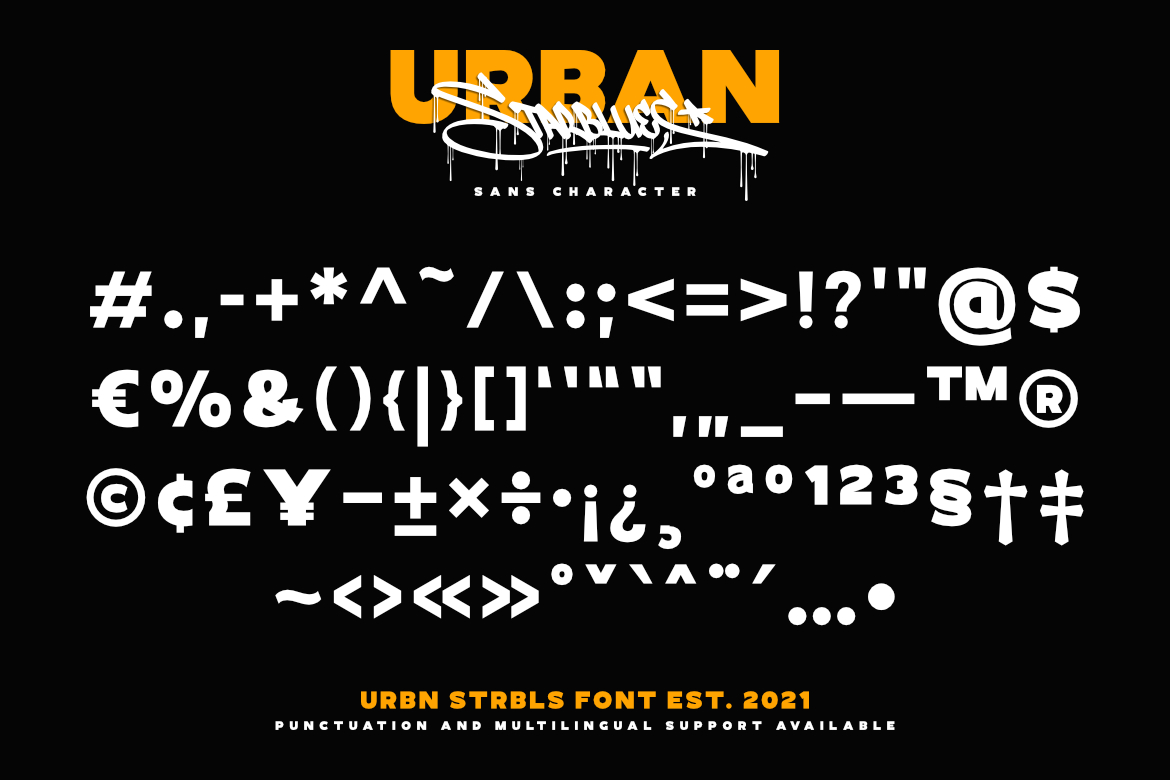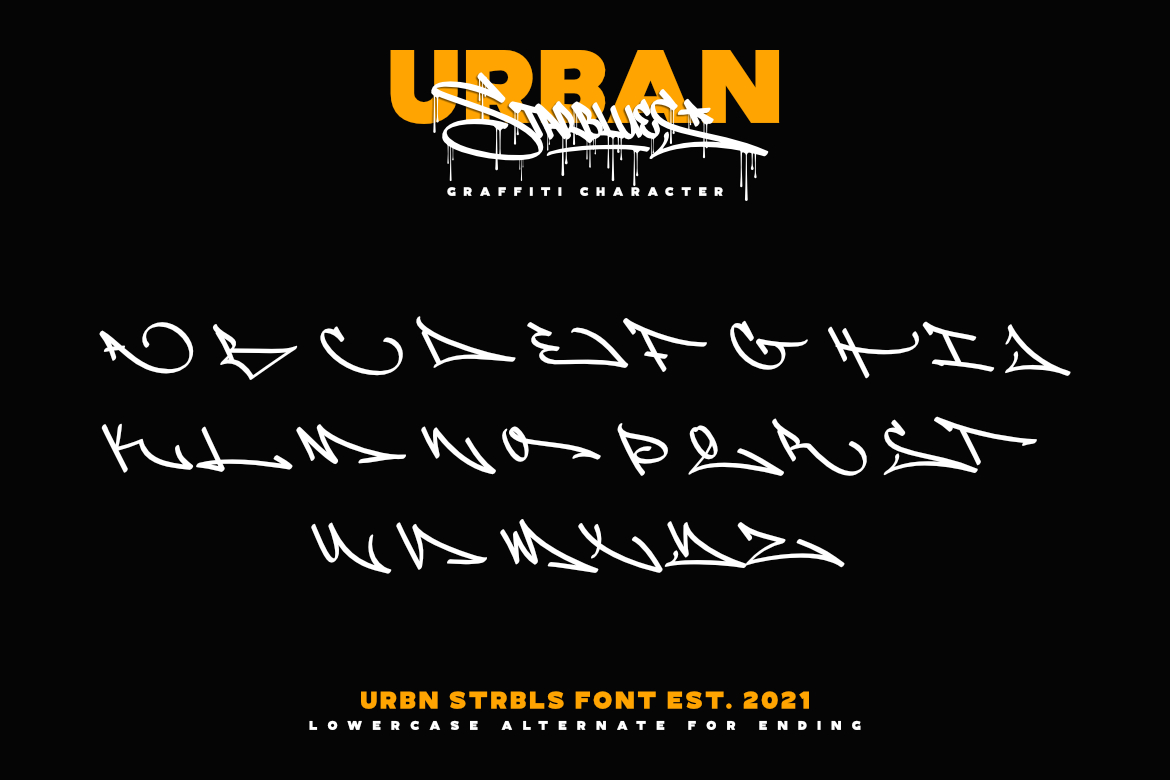
Urban Starblues – Font Duo.
Strong paired fonts as the main design display. Yes, it is very good for design with graffiti theme. You can apply it to t-shirt designs, posters, covers, video thumbnails, merchandise and so on to make it look special.
Features: Uppercase, Lowercase, (All Caps Sans) Numeral, Punctuation, Multilingual, Alternate (Graffiti) & PUA Encoded.
Multilingual contained: Afrikaans, Albanian, Asu, Basque, Bemba, Bena, Breton, Catalan, Chiga, Cornish, Danish, Dutch, English, Estonian, Filipino, Finnish, French, Friulian, Galician, German, Gusii, Indonesian, Irish, Italian, Kabuverdianu, Kalenjin, Kinyarwanda, Luo, Luxembourgish, Luyia, Machame, Makhuwa-Meetto, Makonde, Malagasy, Manx, Morisyen, North Ndebele, Norwegian Bokmål, Norwegian Nynorsk, Nyankole, Oromo, Portuguese, Quechua, Romansh, Rombo, Rundi, Rwa, Samburu, Sango, Sangu, Scottish Gaelic, Sena, Shambala, Shona, Soga, Somali, Spanish, Swahili, Swedish, Swiss German, Taita, Teso, Uzbek (Latin), Volapük, Vunjo, Zulu.